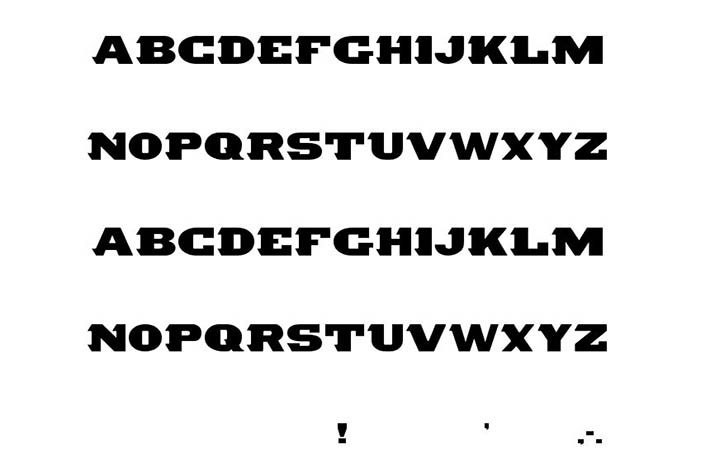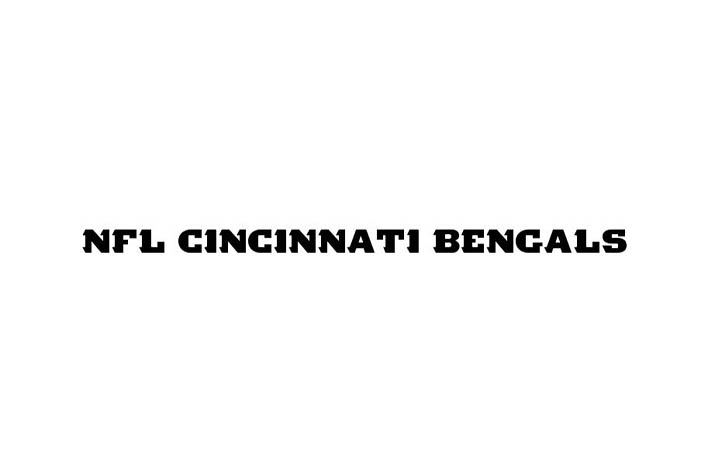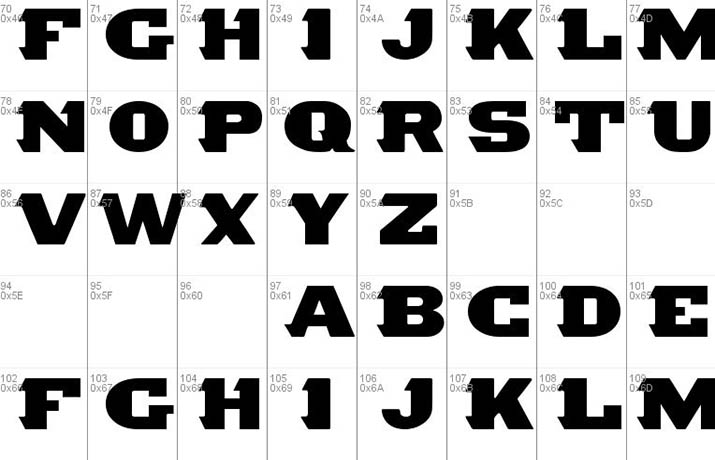
NFL Cincinnati Bengals Font is a fancy display typeface with a sharp-edged letter design. Ideal for sports teams, fitness products, gym logos, social media posts, and more.
“This font family comes in a single weight with Open Type file format. This single weight contains 653 glyphs, capital letters, and few punctuation marks. Moreover, it also supports 103 languages.”
Each letter features sharp knife-like edges to give your typography a fearsome look. Thus it is a great choice for crafting attractive titles and headings.
Style:Display, Fancy, Bold
• Try it out for Product packaging, product design, comic covers, game titles, game development, movie posters, unique signs, product design, special event cards, game graphics, cartoons, kid-friendly elements, headers, banners, flyers, card printing, and more.
This font supports 103 languages. Moreover, it also contains 653 glyphs.
What is NFL Cincinnati Bengals Font?
NFL Cincinnati Bengals Font is a fancy display typeface with a sharp-edged letter design. Ideal for sports teams, fitness products, gym logos, social media posts, and more.